What’s the Wide Fonts Trend in Web Design?
New web design trends emerge and fade all the time. It’s just the way of things. But one such trend capturing the attention of designers and brands at the moment is the wide type or wide fonts trend.
This typographic style, characterized by its extended letterforms and impactful presence, is not just a fleeting fad. It’s a revival of a classic style, now intertwined with the boldness of neubrutalism, a design movement known for its raw, unfiltered aesthetic. But more on that in a moment.
First, let’s thoroughly describe what wide fonts are.
What Are Wide Fonts?
Wide fonts (or wide type), as the name suggests, involves typography with extended, often exaggerated, horizontal proportions. It’s a bold statement in the design world, reminiscent of the mid-20th-century typesetting, but with a modern twist. These fonts are not just wider though. They also carry a personality that is often loud, assertive, and unapologetically present.
Historically, wide type has roots in the advertising and print media of the 50s and 60s. It was a way to capture attention, to shout louder in a world bustling with new products and ideas.
Today, its resurgence is not just a nod to nostalgia but a response to the cluttered digital space. In a world where grabbing and holding attention is more challenging than ever, wide type is hard to ignore.
Neubrutalism in Web Design
Neubrutalism, the rebellious child of the design world, finds harmony with wide fonts. Originating from the architectural movement of Brutalism, neubrutalism in web design is all about raw, unrefined, and utilitarian aesthetics. It’s a pushback against the sleek, overly polished designs that have dominated digital designs for years.
Wide fonts complement this aesthetic perfectly. Their boldness aligns with the straightforward, “function over form” philosophy of neubrutalism. And together, they create a design language that is both striking and grounded, a visual storytelling method that’s honest and direct.
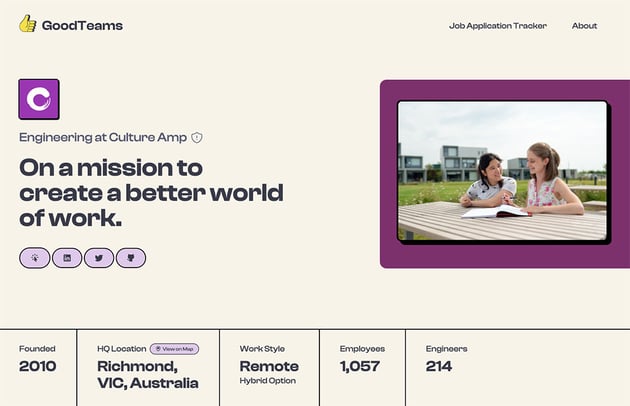
Wide Fonts in Action
Exploring real-world examples offers invaluable insights into how wide fonts are being utilized in contemporary web design. Let’s take a look at several notable websites, fonts, and designs that capture the wide font trend well!
USSR Design Almanac
The USSR Design Almanac website is a fascinating showcase of wide type in action. The site uses bold, stretched letterforms that grab attention immediately. It’s not just about size though. This text makes a statement.
The typography here acts as a central design element, guiding the user’s eye and setting the tone for the browsing experience. The wide type, combined with a minimalist layout and stark color contrasts, encapsulates the essence of neubrutalism as well.
DEMO Festival
DEMO Festival’s website offers another intriguing example. Here, wide type is used to create a sense of movement. The typography stretches across the screen in multiple ways, breaking traditional boundaries and creating an immersive experience.
It’s a blend of art and function, where the wide font reflects the festival conceptually: it pushes creative boundaries.
Gumroad
Gumroad’s branding, though not using wide type in the strictest sense, aligns with the trend through its use of geometric fonts with unique details. The Degular font, for example, while not wide, shares the overall feeling of a geometric font with funky details.
This style complements wide fonts by offering a visually interesting contrast -- the structured geometry plays off the extended forms, creating a balanced yet dynamic visual hierarchy.
Dropbox’s Sharp Grotesk
Dropbox’s use of Sharp Grotesk is a prime example of an extended font in a corporate context. This font choice marked a significant shift in Dropbox’s brand identity, moving from a friendly, approachable look to something more mature and versatile.
Sharp Grotesk’s wide range of widths and weights allows for a flexible yet cohesive visual language.
Streamline Shopify Theme
Another example can be found in the Streamline Theme on Shopify. This theme, designed for impactful visual storytelling, makes good use of wide, bold typography to create a sense of immediacy and modern style.
The wide font here is prominent on the website’s headers and important call-to-action areas, both attracting attention and conveying a message of confidence.
FATES World
FATES World’s website is a striking example of how wide fonts can be blended with sci-fi and retro-futurism designs. The site uses wide, bold fonts that encapsulate the essence of sci-fi narratives -- vast, unexplored, and forward-looking.
This typography choice complements the site’s thematic content, which revolves around space exploration and futuristic concepts.
Claud
Our last example comes from the Claud project on Behance, which showcases a masterful integration of wide fonts within a futuristic design. The bold, stretched typography complements the project’s theme, which appears to be rooted in a blend of digital art, character design, and crypto-brand identity.
Will you be using wide fonts in your next design? They might be just the thing your design needs to make an impact.